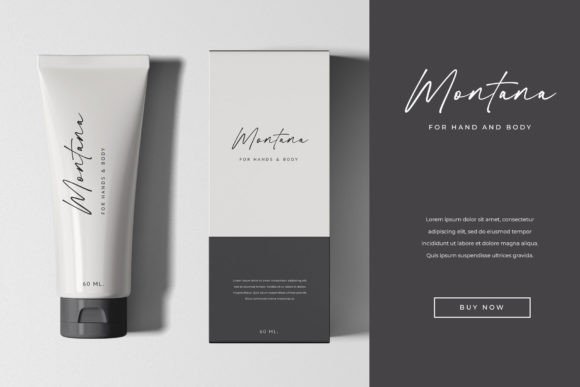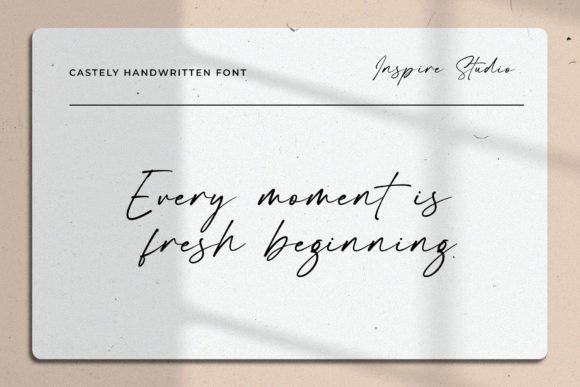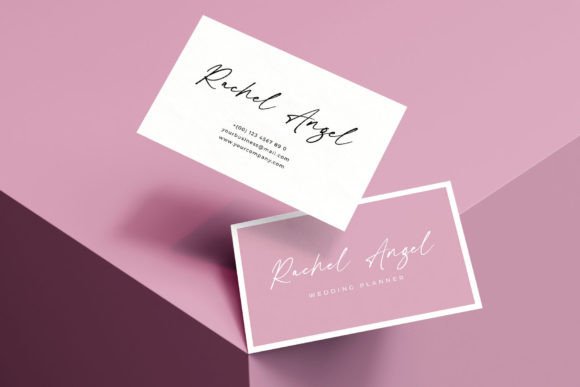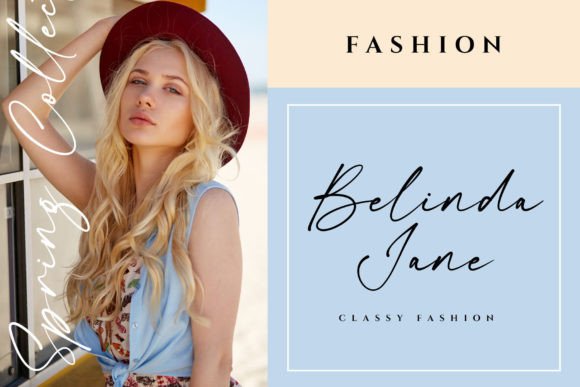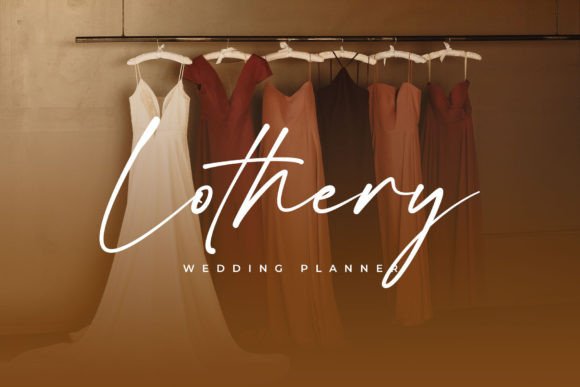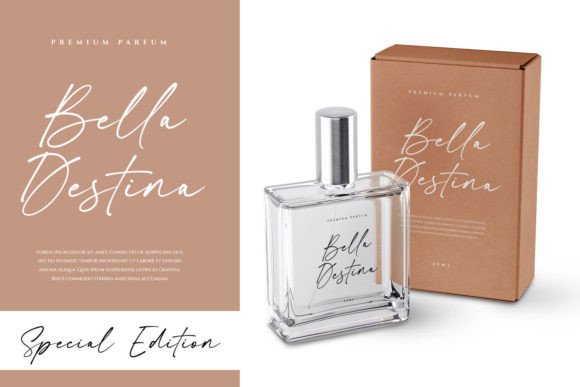
Introducing Castely Font: The Perfect Blend of Professionalism and Elegance
In the world of typography, fonts play a crucial role in conveying the tone and personality of a brand. For businesses, a well-designed font can make all the difference in establishing a strong visual identity. This is where Castely Font comes in – a business signature font that embodies professionalism, style, and sophistication.
What Makes Castely Font Stand Out?
Castely Font is a modern, minimalist, and elegant font that is designed to make a lasting impression. Its soft curves and sleek lines give it a stylish and catchy appeal that is sure to grab attention. Whether you’re a designer, craftsperson, or business owner, Castely Font is an excellent choice for anyone looking to elevate their brand’s visual identity.
Key Features of Castely Font
- Modern and Minimalist Design: Castely Font boasts a clean and contemporary design that exudes professionalism and sophistication.
- Elegant and Readable: The font’s soft curves and clear typography make it easy to read and understand, even at small sizes.
- Ligature and Alternate Support: Castely Font comes with ligature and alternate support, allowing you to add a touch of creativity and uniqueness to your designs.
- Multilingual Support: With multilingual support, Castely Font can be used for a wide range of languages, making it a versatile choice for global brands.
- Easy to Use: Castely Font is designed to be user-friendly, making it easy to integrate into your design workflow.
Benefits of Using Castely Font
So, why choose Castely Font for your design projects? Here are just a few benefits:
- Establish a Strong Brand Identity: With Castely Font, you can create a consistent visual brand that reflects your business values and personality.
- Enhance Readability: The font’s clear typography and elegant design make it easy for your audience to read and engage with your content.
- Stand Out from the Competition: Castely Font’s unique and stylish design helps you differentiate your brand from others in your industry.
- Versatility: With its multilingual support and ligature/alternate features, Castely Font can be used for a wide range of design projects, from logos and branding to packaging and advertising.
Who Can Benefit from Castely Font?
Castely Font is an excellent choice for:
- Graphic Designers: Looking for a stylish and professional font to add to their design arsenal.
- Crafters and Makers: Seeking a unique and elegant font to enhance their brand’s visual identity.
- Business Owners: Wanting to establish a strong brand presence and differentiate themselves from competitors.
- Marketing and Advertising Agencies: Needing a versatile font that can be used across various campaigns and projects.
In conclusion, Castely Font is an exceptional business signature font that offers a perfect blend of professionalism, style, and elegance. With its modern design, ligature and alternate support, and multilingual features, it’s an excellent choice for designers, crafters, and business owners looking to elevate their brand’s visual identity. Whether you’re looking to establish a strong brand presence, enhance readability, or simply add a touch of sophistication to your designs, Castely Font is an excellent choice.